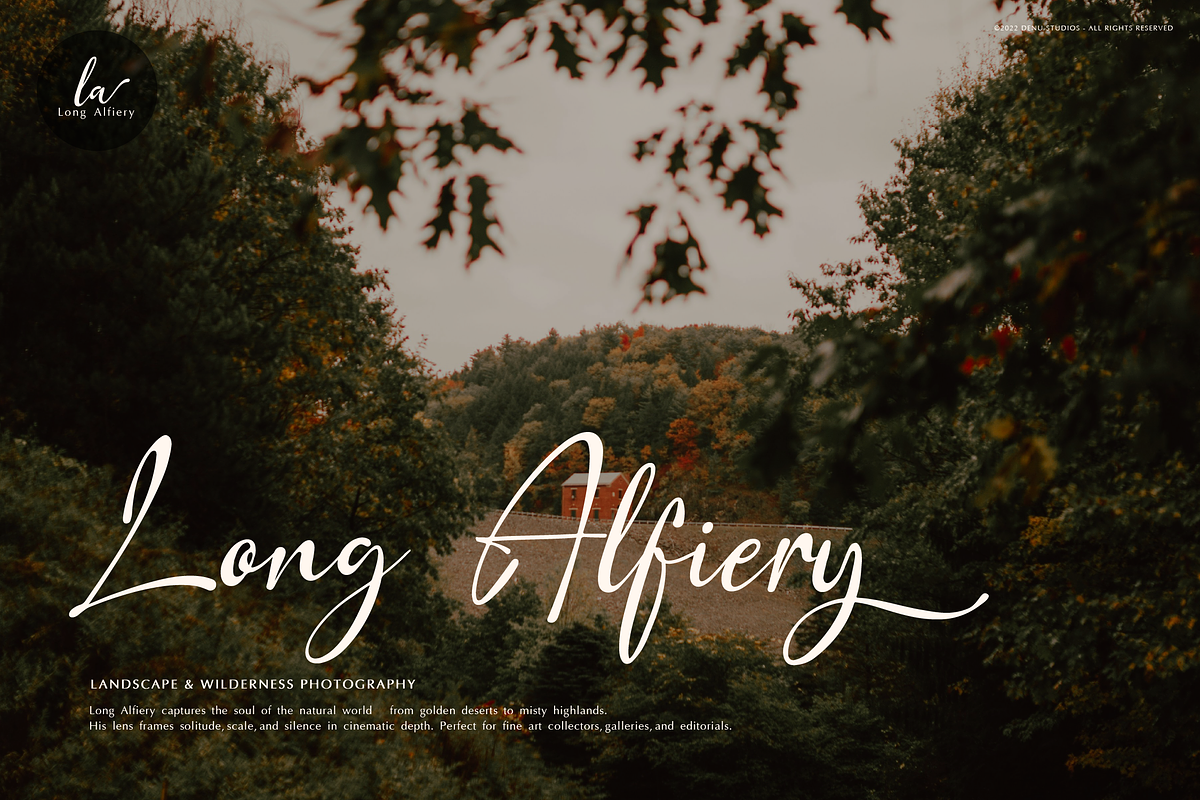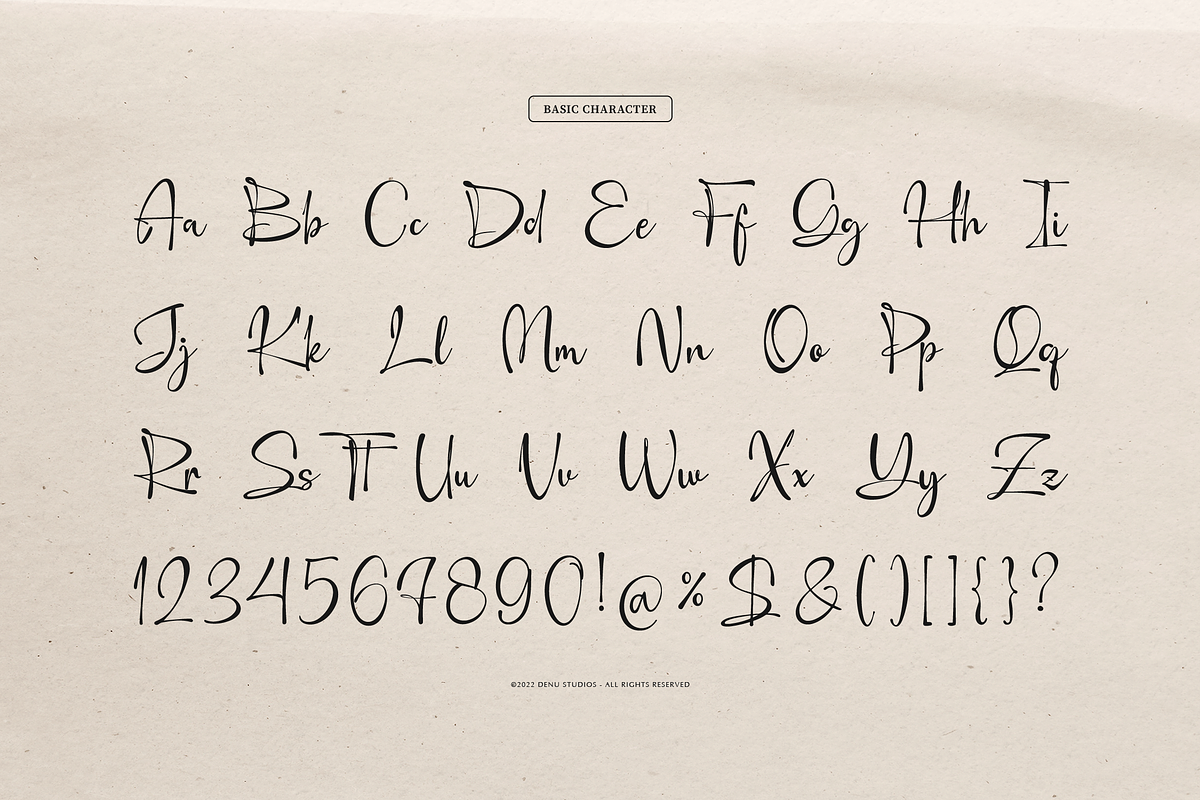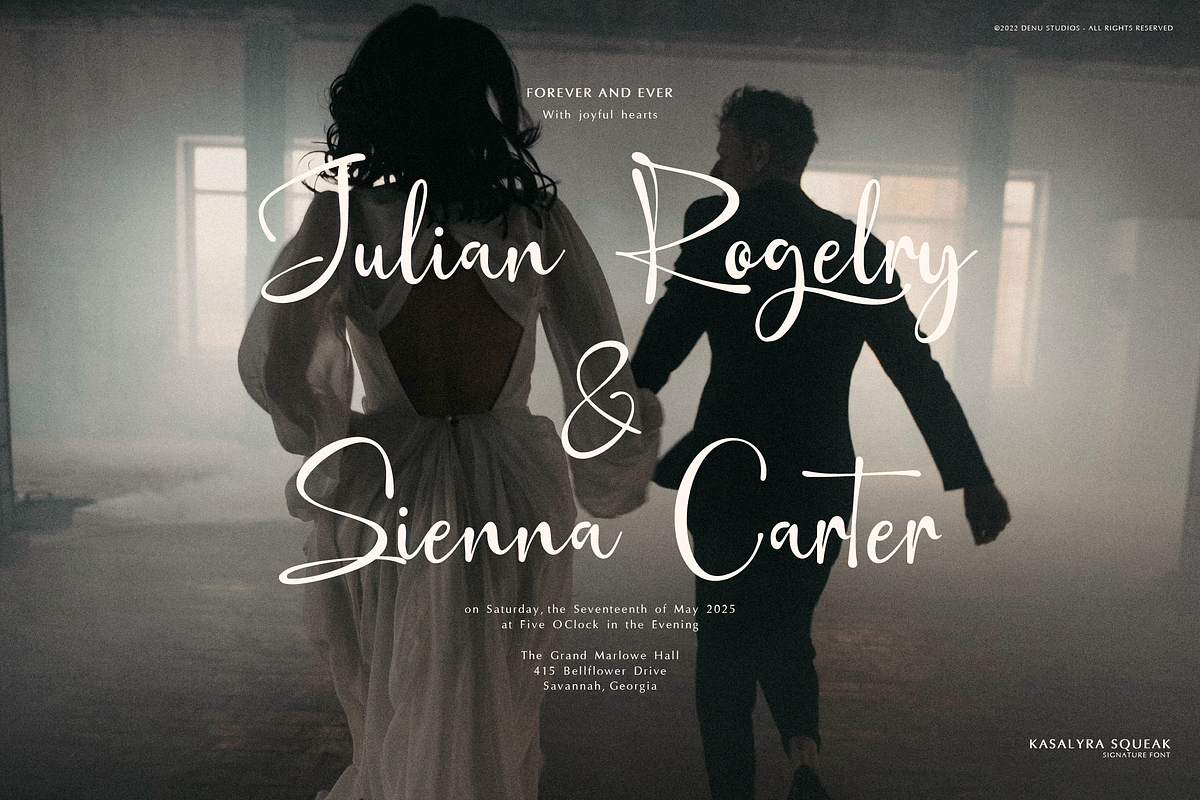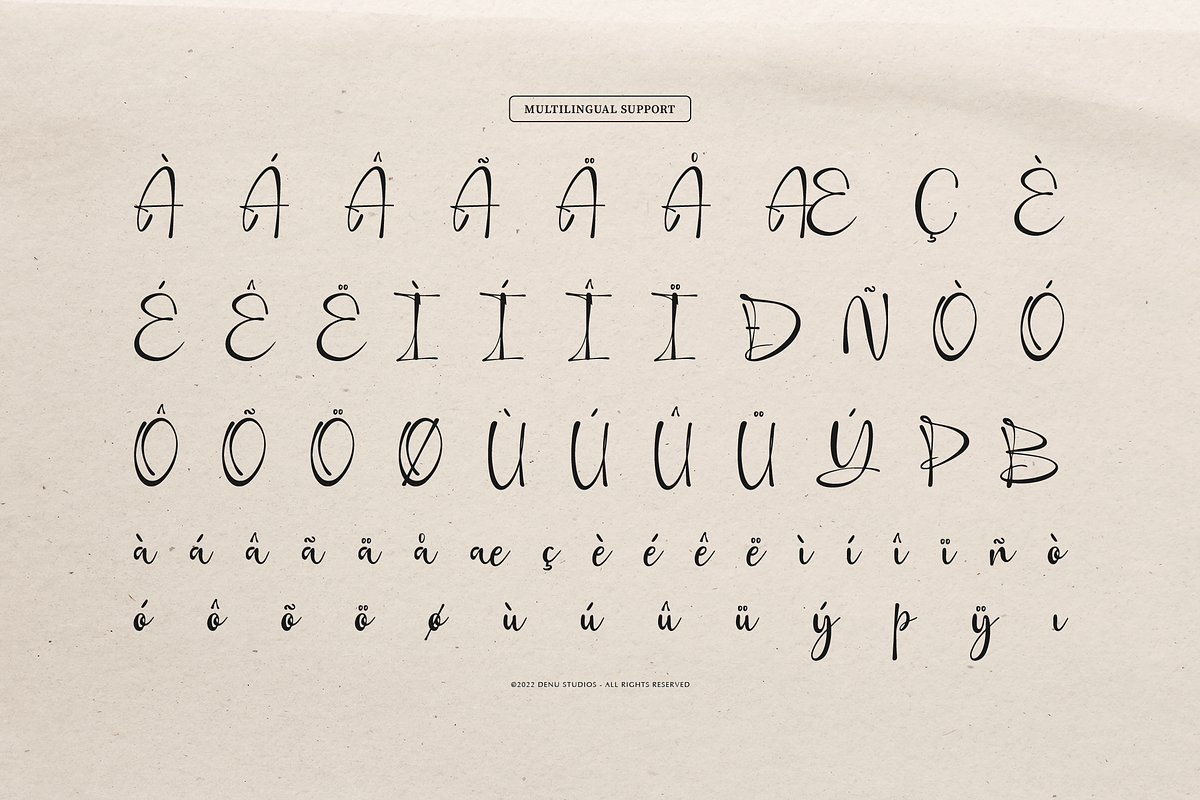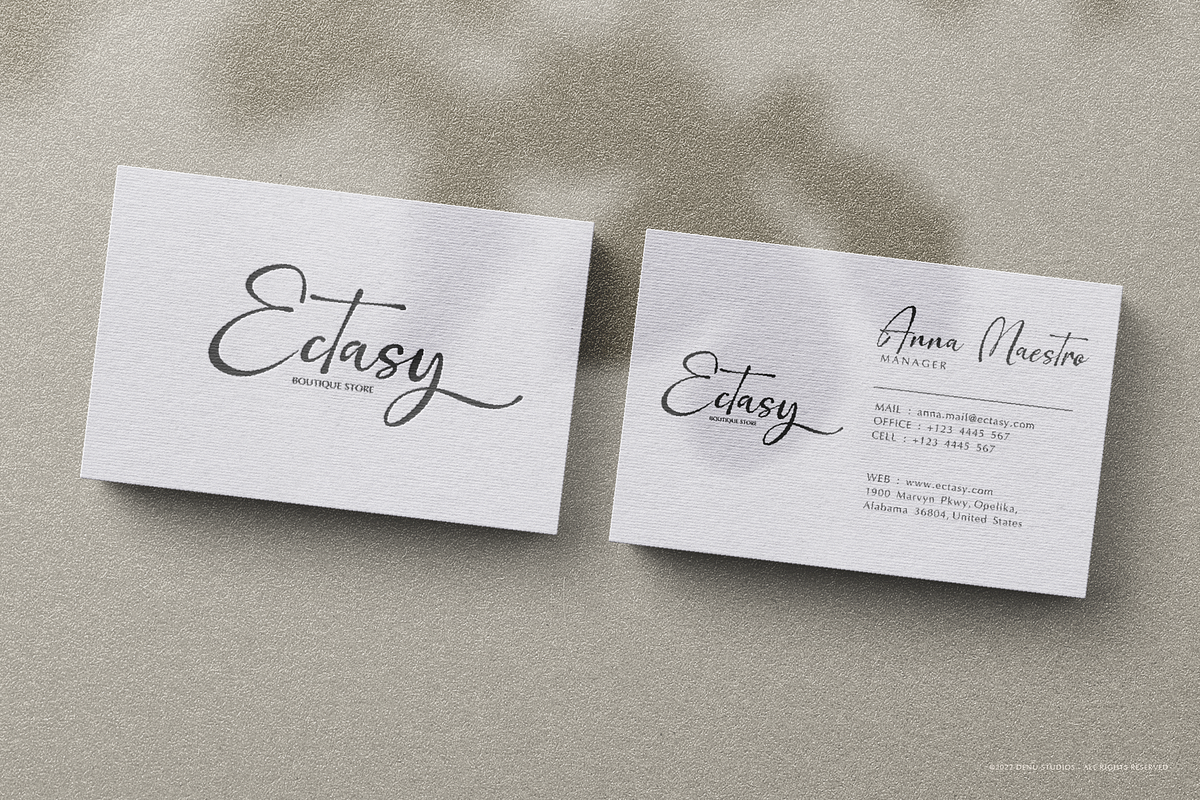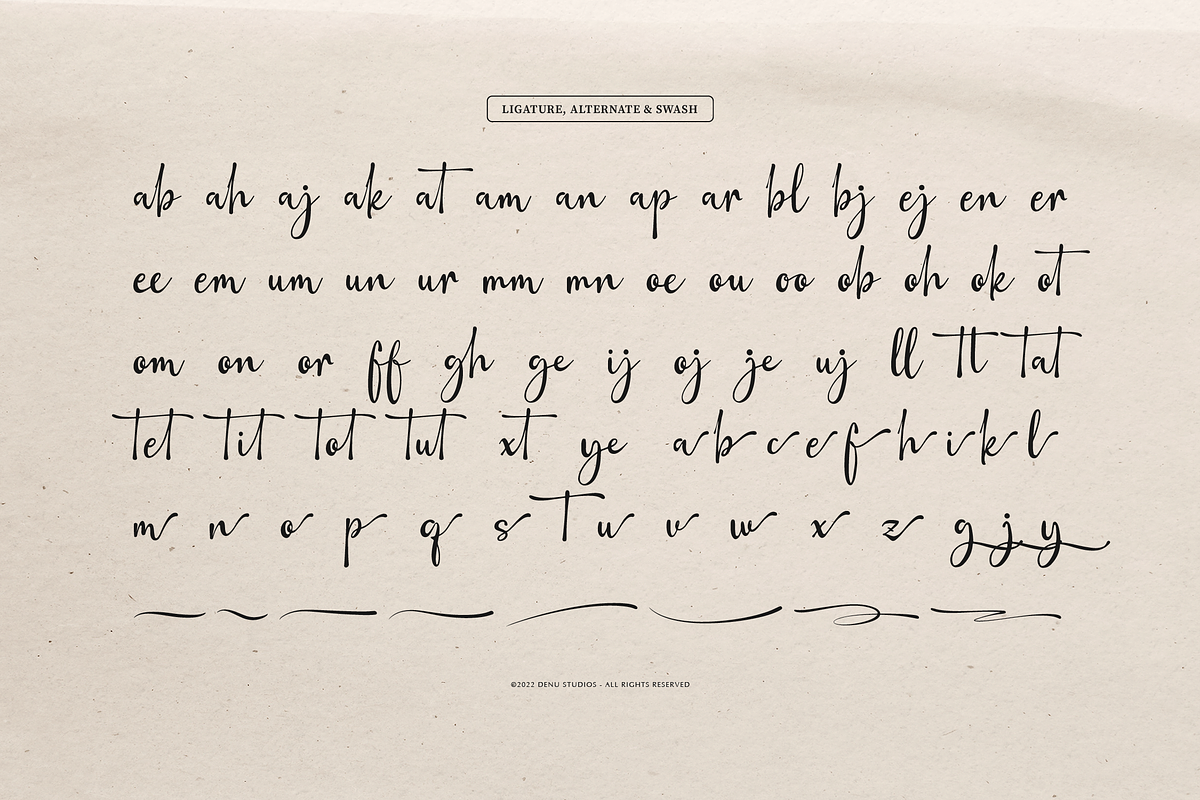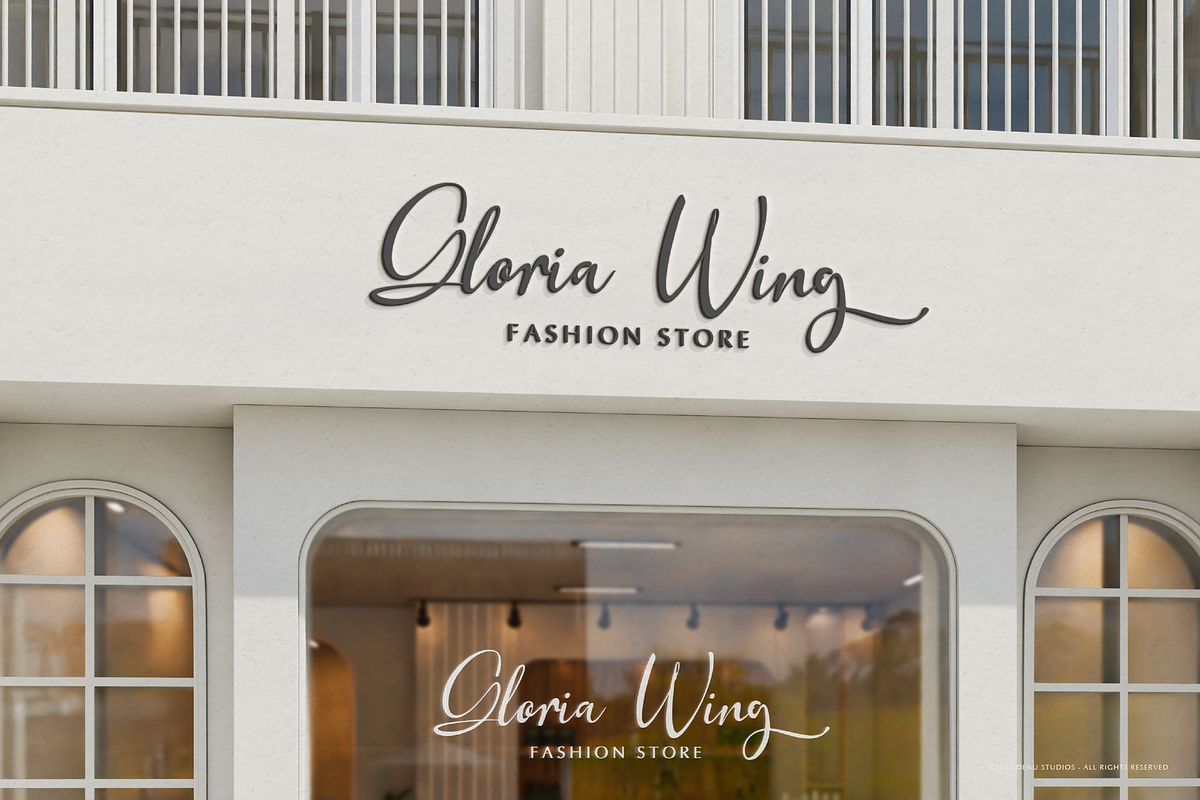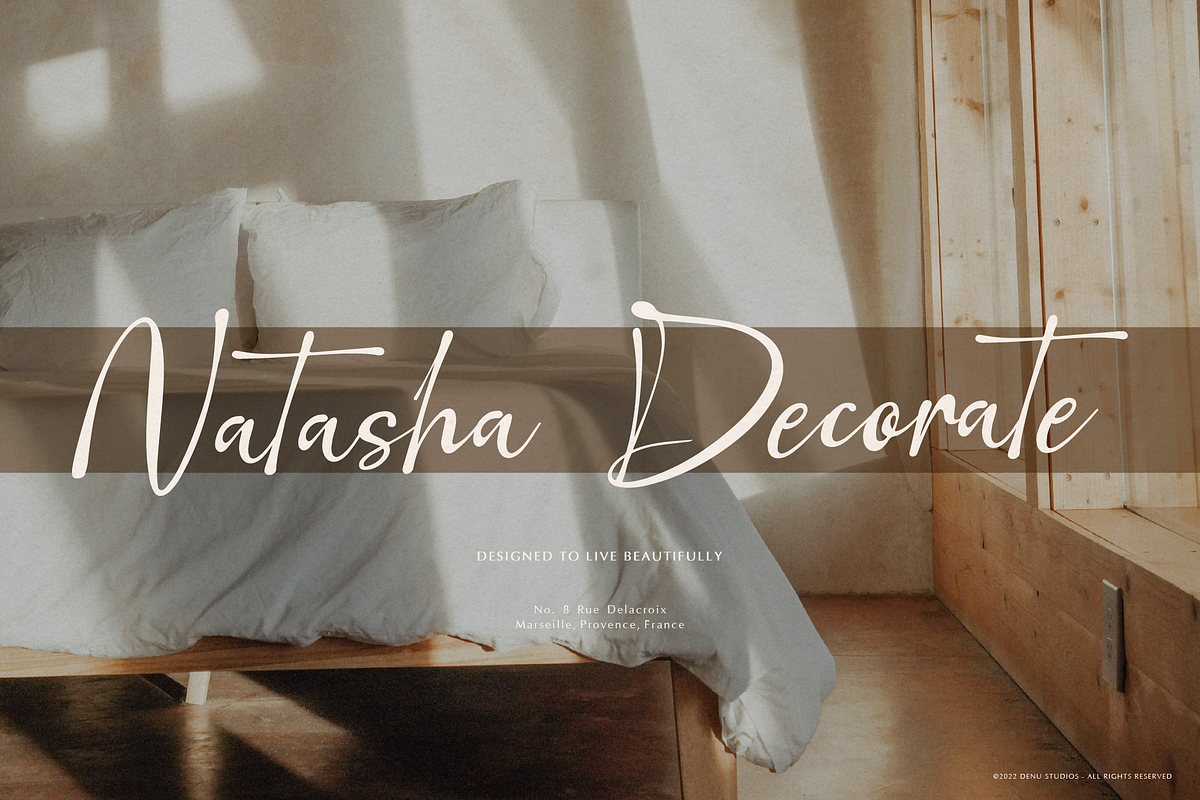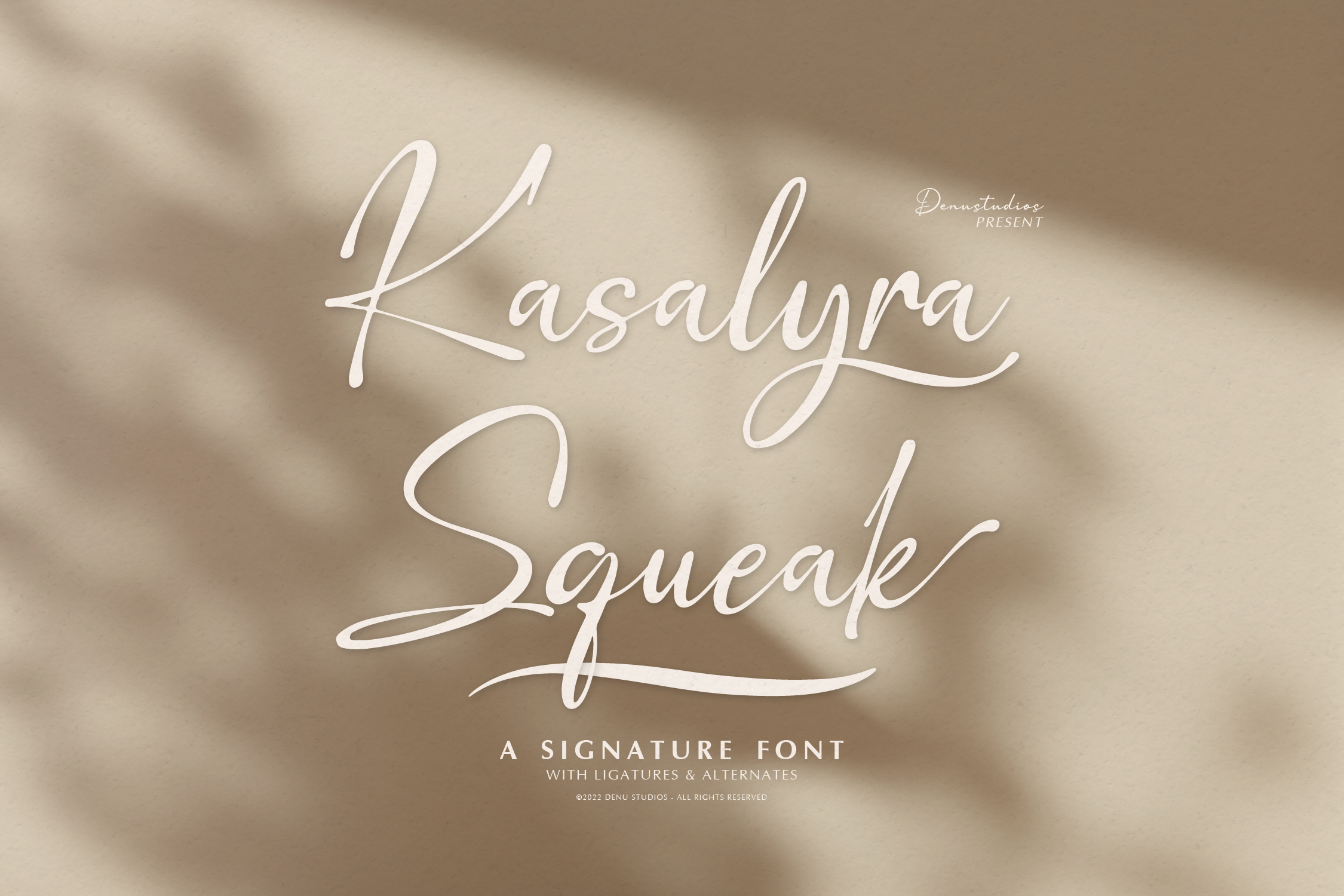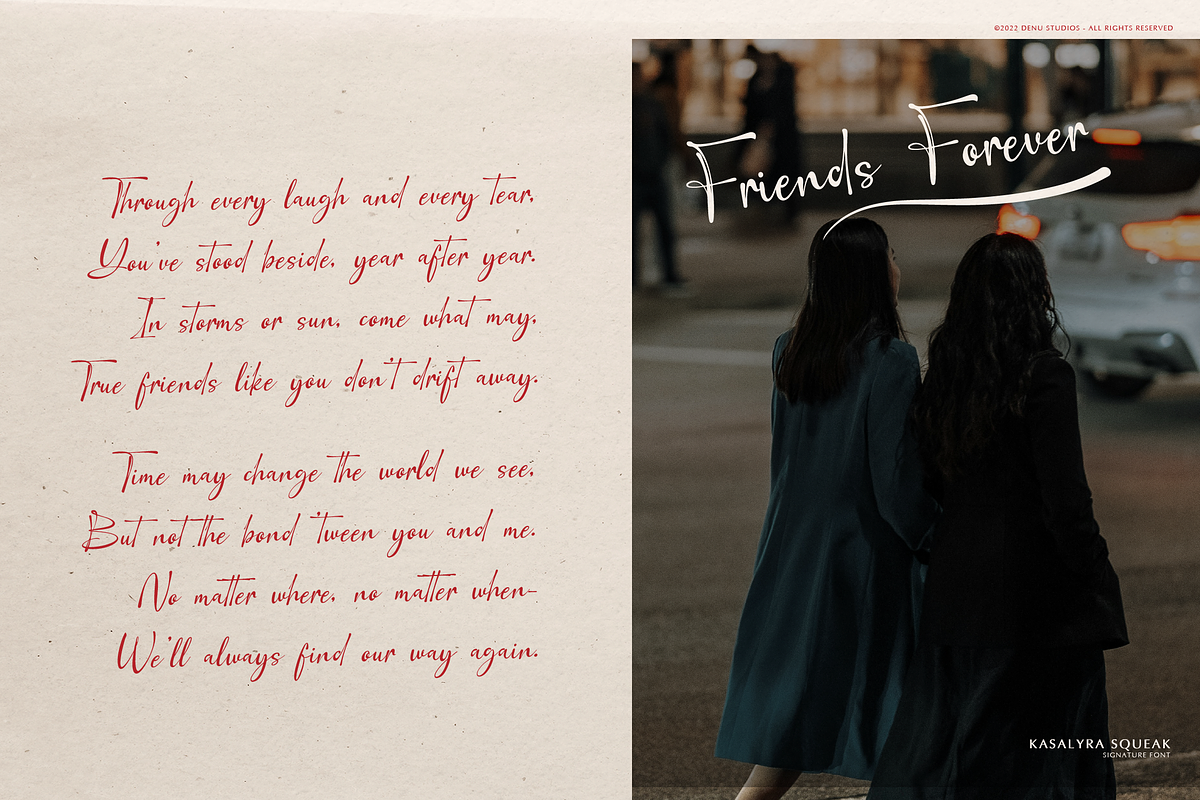
Kasalyra Squeak | Signature Font
Kasalyra Squeak | Signature Font, from Denustudios, suitable for any projects such as: logos, branding projects, homeware designs, product packaging, mugs, quotes, posters, shopping bags, t-shirts, book covers, name card, invitation cards, greeting cards, label, photography, watermark, special events, and all your other lovely projects that need a Signature Font taste.